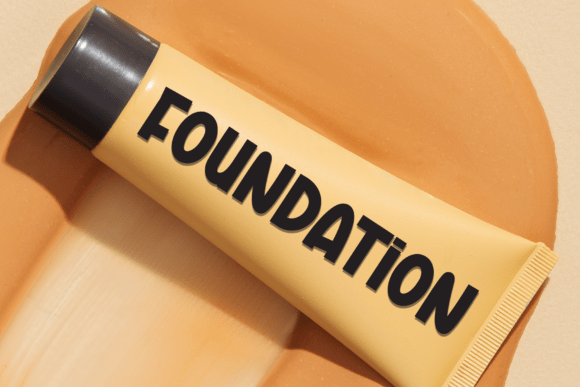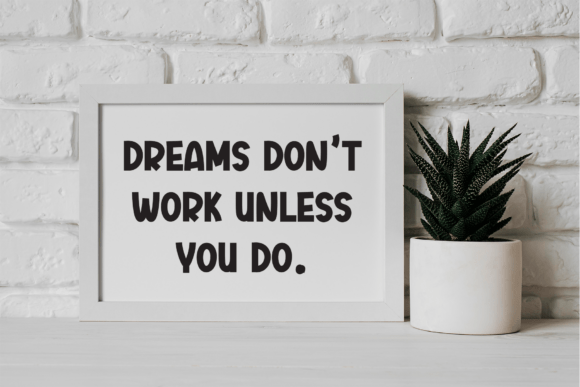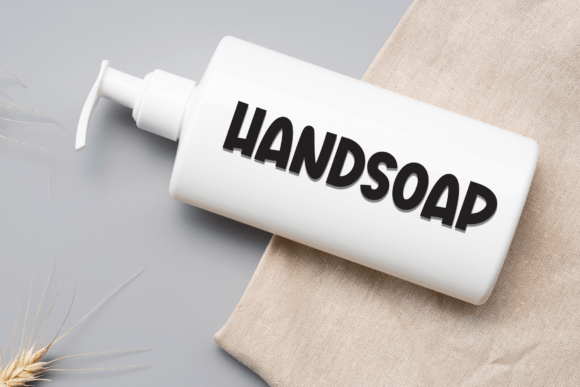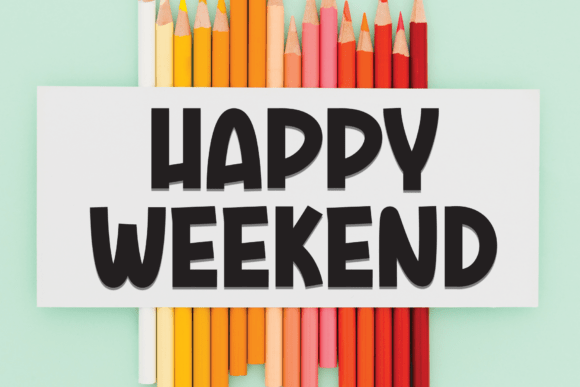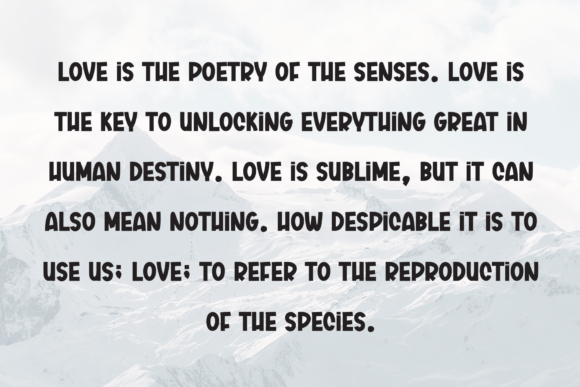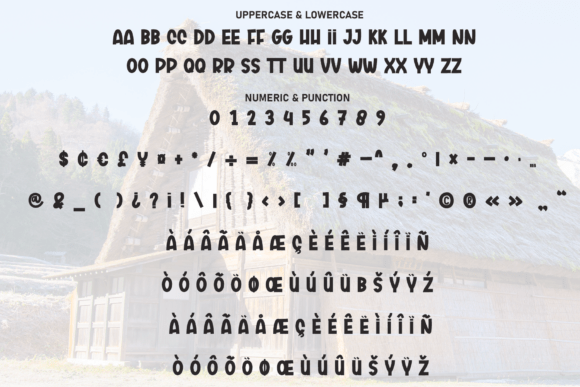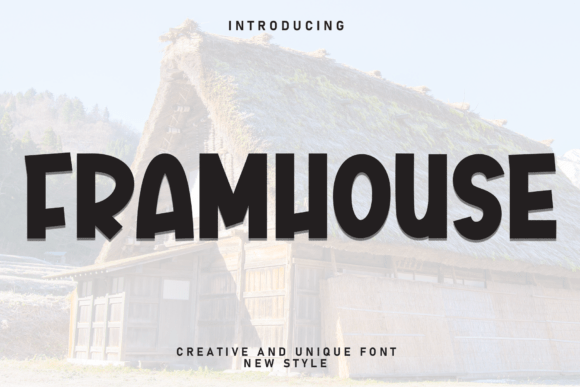
Framhouse Font: Elevate Your Designs with a Casual and Neat Display Font
In the world of typography, a font can make or break the visual appeal of a design project. For designers and crafters looking for a font that exudes warmth, clarity, and approachability, Framhouse Font is an excellent choice. This casual and neat display font is designed to bring a touch of personality to your projects, making it perfect for branding, headlines, and everyday designs.
The Characteristics of Framhouse Font
Framhouse Font boasts a clean structure and approachable style, making it an ideal choice for designers seeking a font that is both readable and charming. The balanced letterforms of Framhouse Font offer a perfect blend of readability and charm, ensuring that every message feels genuine and inviting. Whether you’re working on a branding project, creating headlines, or designing everyday materials, Framhouse Font is a versatile choice that can adapt to various design needs.
Why Choose Framhouse Font?
So, what sets Framhouse Font apart from other display fonts? Here are a few reasons why designers and crafters love working with Framhouse Font:
- Warmth and Clarity: Framhouse Font is designed to bring warmth and clarity to your projects, making it perfect for designs that require a personal touch.
- Clean Structure: The clean structure of Framhouse Font ensures that your designs look neat and organized, even at smaller font sizes.
- Approachable Style: The approachable style of Framhouse Font makes it easy to connect with your audience, creating a sense of familiarity and friendliness.
- Readability and Charm: The balanced letterforms of Framhouse Font offer excellent readability and charm, making it perfect for designs that require both functionality and aesthetics.
Using Framhouse Font in Your Designs
Framhouse Font is a versatile display font that can be used in a variety of design projects. Here are some ideas to get you started:
- Branding: Use Framhouse Font to create a unique and memorable brand identity that reflects your company’s personality.
- Headlines: Add a touch of personality to your headlines with Framhouse Font, making them more engaging and attention-grabbing.
- Everyday Designs: Use Framhouse Font in your everyday designs, such as social media graphics, flyers, and brochures, to add a touch of warmth and approachability.
Tips for Working with Framhouse Font
To get the most out of Framhouse Font, here are some tips to keep in mind:
- Experiment with Font Sizes: Framhouse Font looks great at various font sizes, so don’t be afraid to experiment and find the perfect size for your design.
- Pair with Other Fonts: Framhouse Font pairs well with other fonts, so try combining it with a serif or script font to create a unique and interesting design.
- Use it Consistently: To create a cohesive design, use Framhouse Font consistently throughout your project.
Framhouse Font is a casual and neat display font that can elevate your designs with its warmth, clarity, and approachability. With its clean structure, balanced letterforms, and charming style, it’s perfect for branding, headlines, and everyday designs. Whether you’re a designer or crafter, Framhouse Font is an excellent choice for anyone looking to add a touch of personality to their projects.
So why not give Framhouse Font a try? With its versatility and charm, it’s sure to become a staple in your design toolkit.